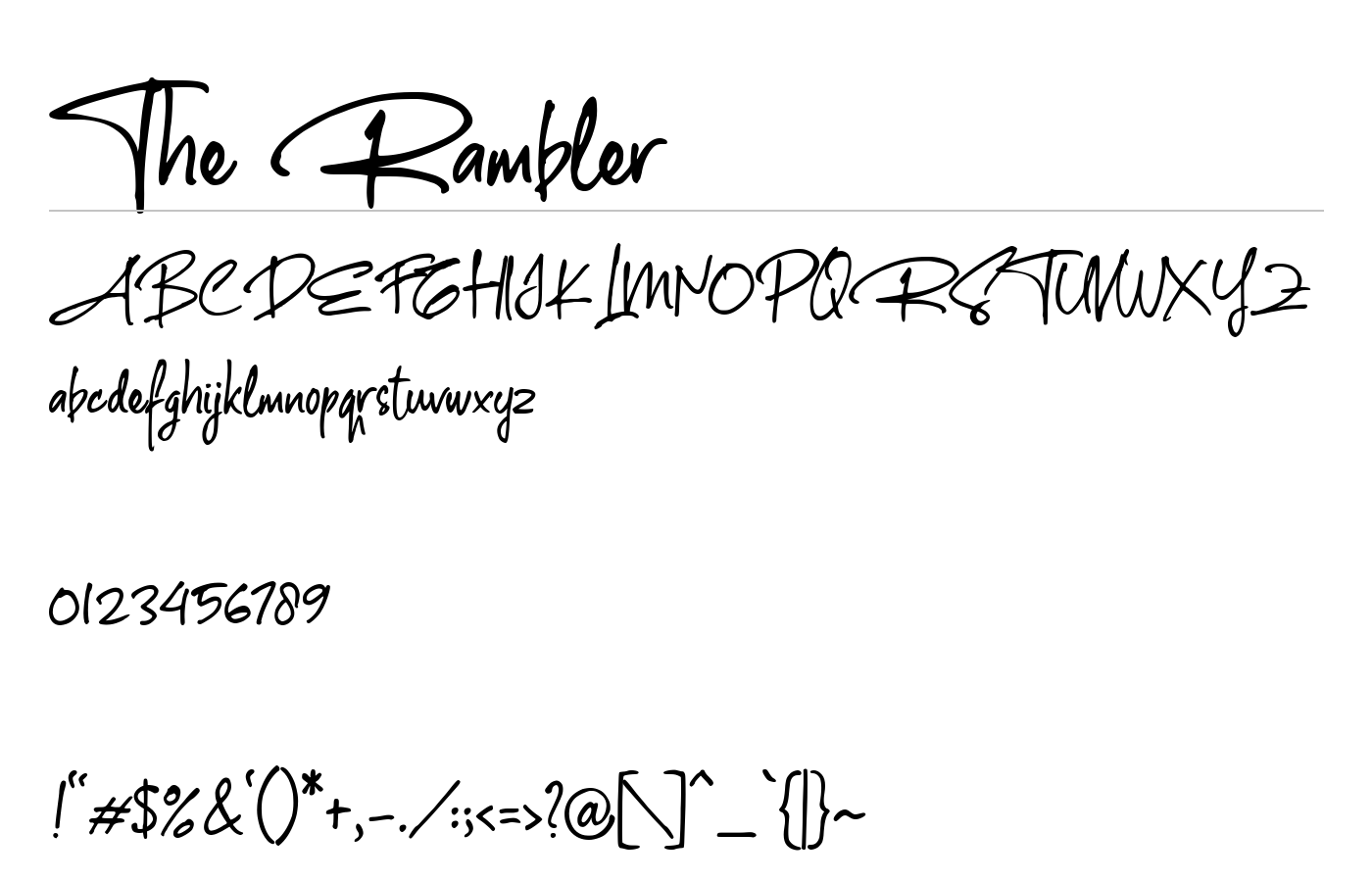
The Rumbler is a lively handwritten script font with a playful and casual vibe, featuring varied stroke widths and slightly irregular, energetic letterforms. Its tall, narrow characters and distinctive uppercase letters give it personality, making it ideal for creative branding, informal invitations, and expressive headlines. This font adds a friendly, dynamic touch to designs needing a personal, approachable feel.
The Rumbler Font
About The Rumbler Font